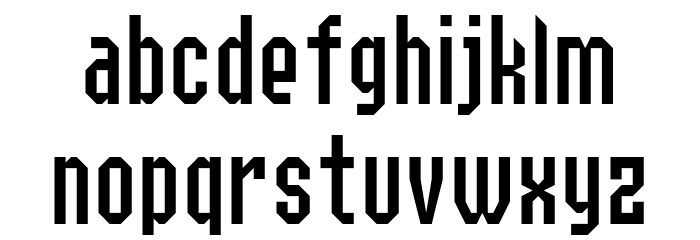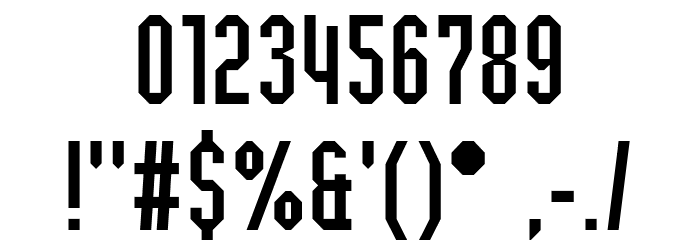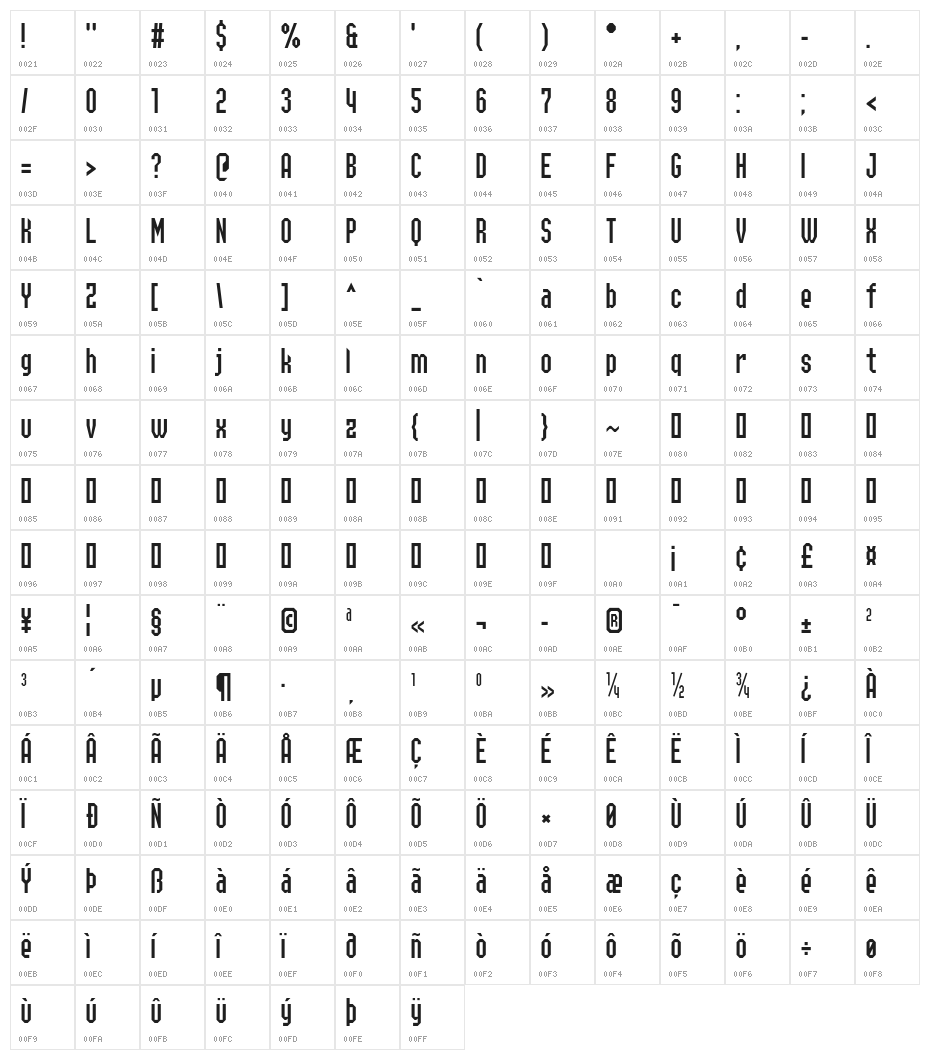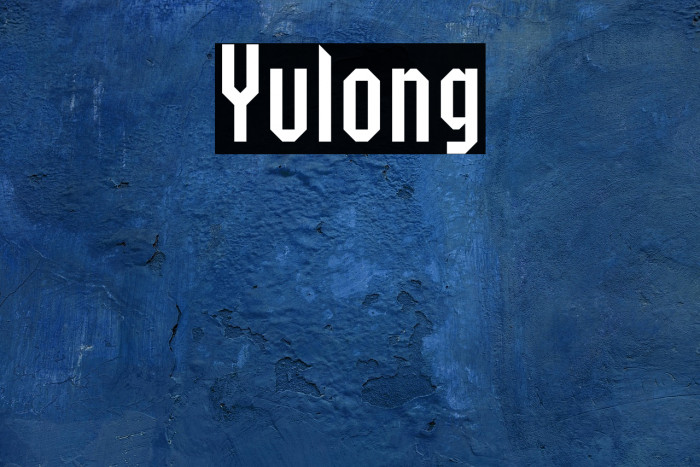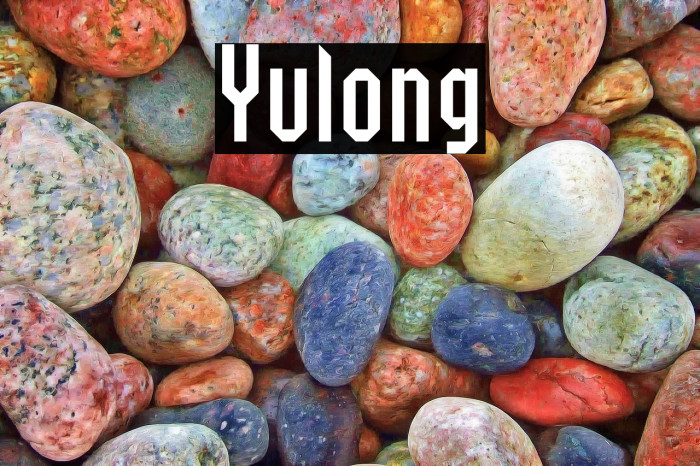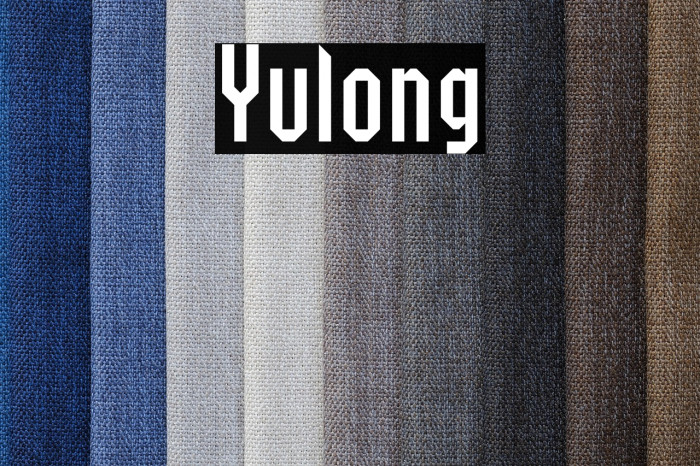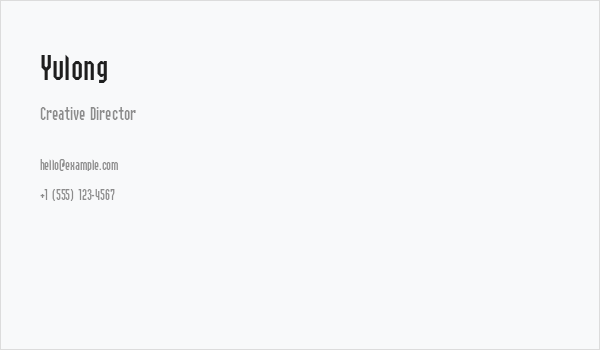
Yulong Font
This font features a bold, geometric design with sharp angles and a strong presence. The uppercase and lowercase letters maintain a consistent height, creating a uniform appearance. The characters are constructed with straight lines and sharp corners, giving them a modern and industrial feel. The numbers and special characters follow the same design principles, ensuring cohesion across all elements. The font's boldness makes it highly legible and impactful, suitable for various design applications.
A bold, geometric font with sharp angles and a modern industrial feel.
- Proposed Projects: Ideal for branding, posters, headlines, and any project requiring a strong, modern aesthetic.